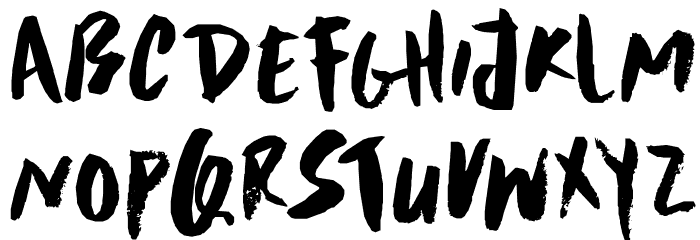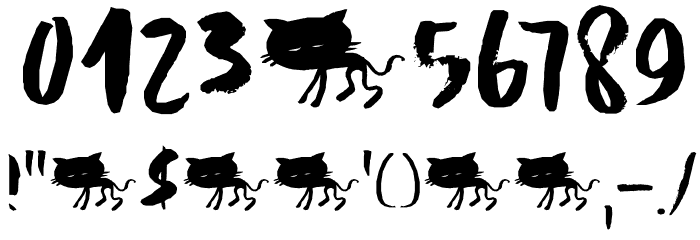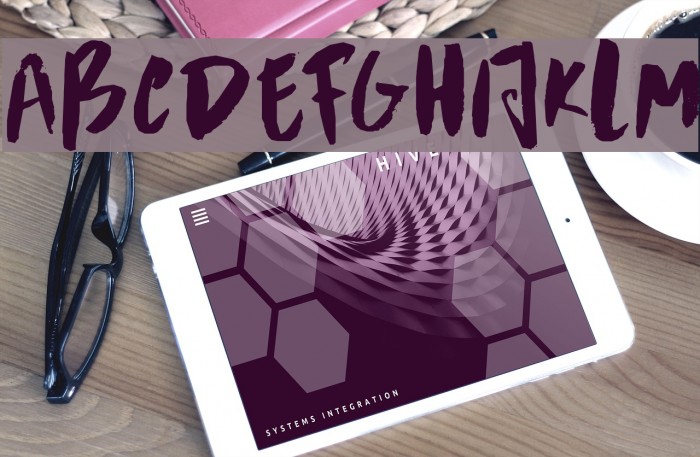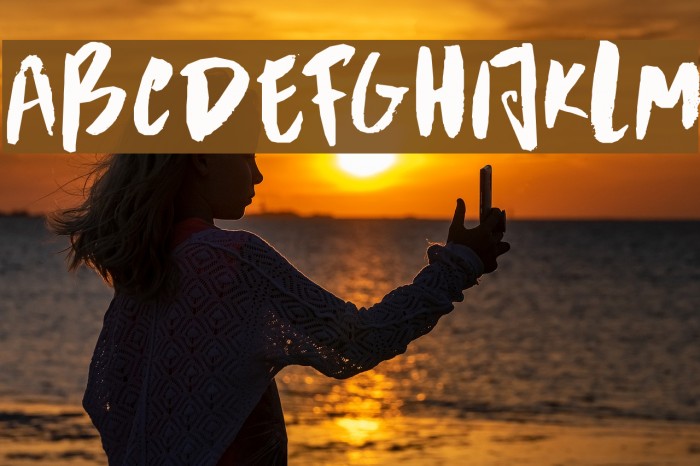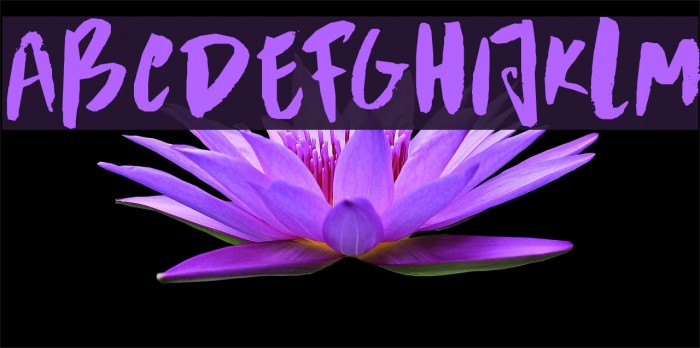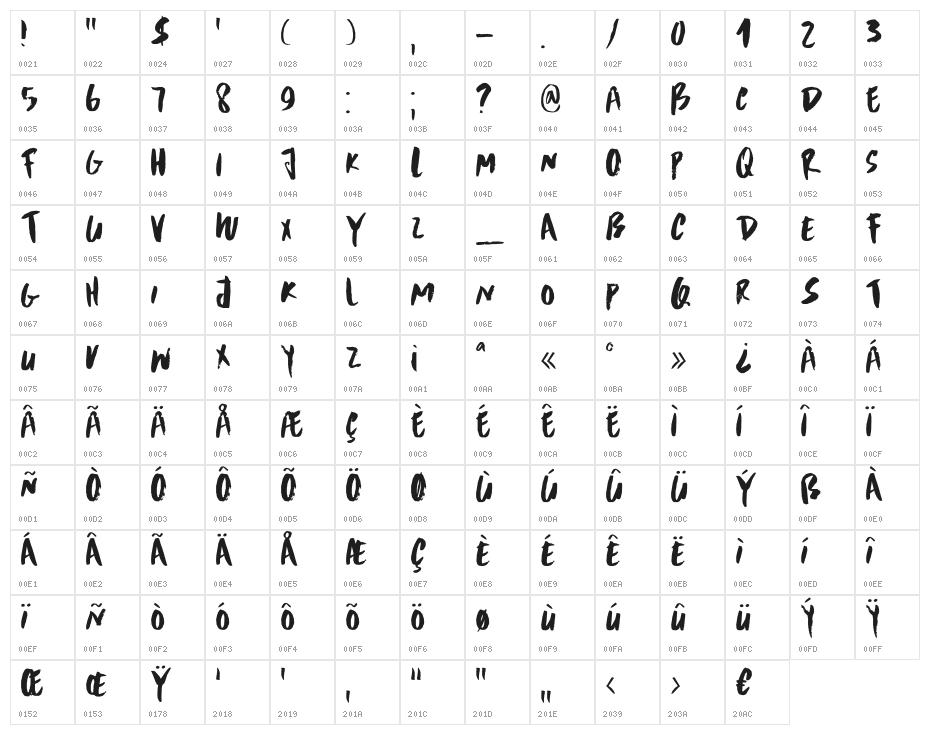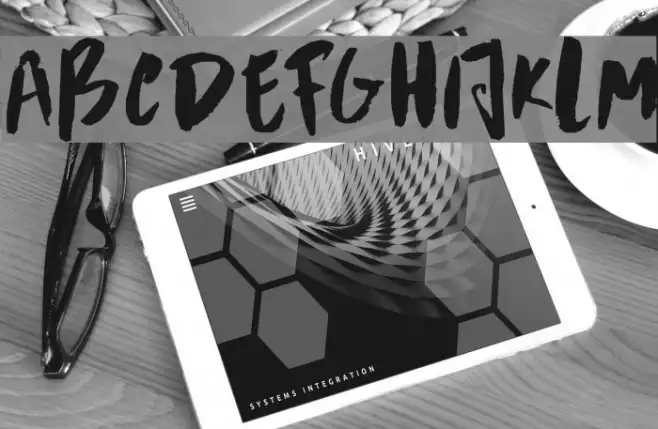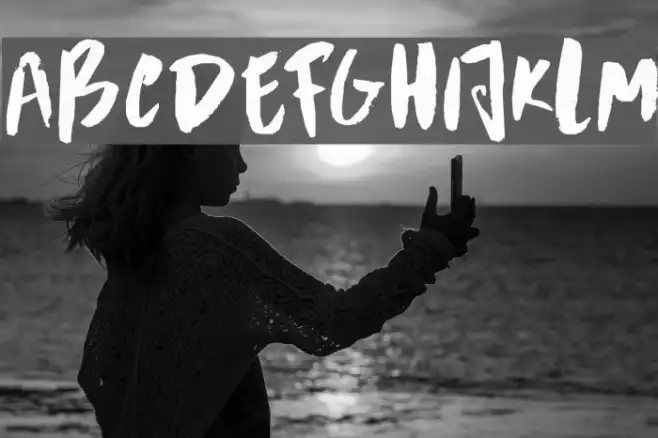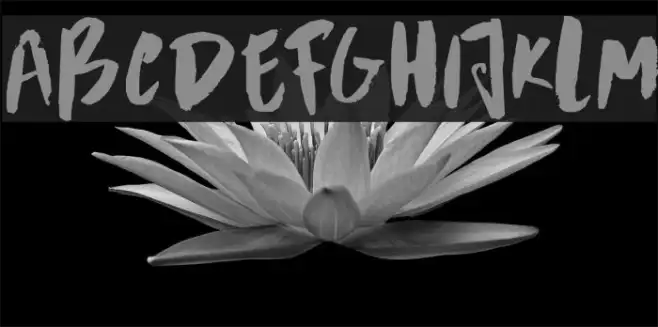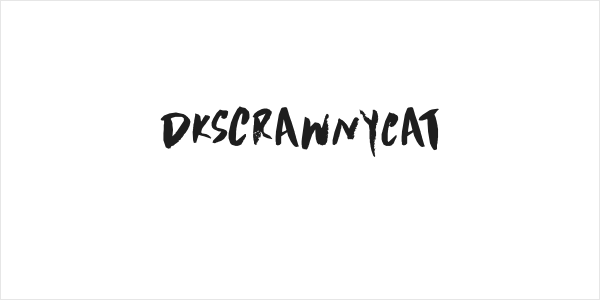
DKScrawnyCat Font
This font exudes a playful and artistic vibe, characterized by its bold, brush-like strokes that give it a hand-drawn appearance. The letters are irregular and dynamic, with varying thicknesses that add to its whimsical charm. The inclusion of quirky cat illustrations as special characters enhances its unique and creative style. This font is perfect for projects that require a touch of personality and fun, making it ideal for creative branding, posters, and playful designs.
A bold, brush-style font with playful cat illustrations.
- Proposed Projects: Ideal for creative branding, posters, children's books, and playful design projects.
- Overall Style: Playful, Artistic